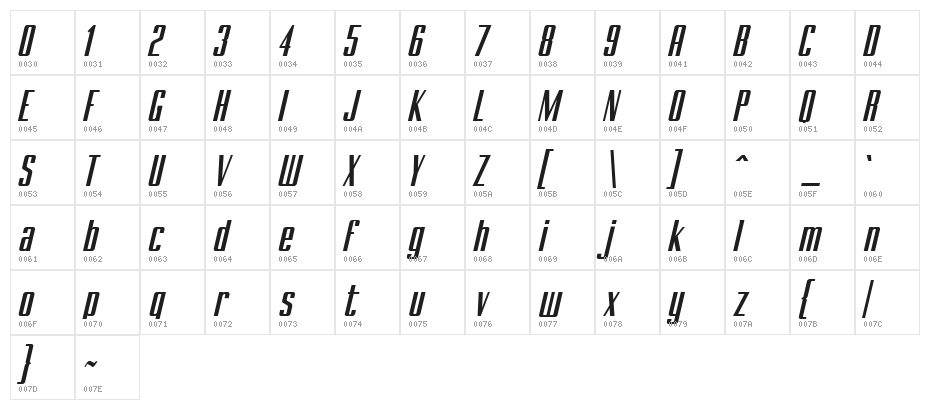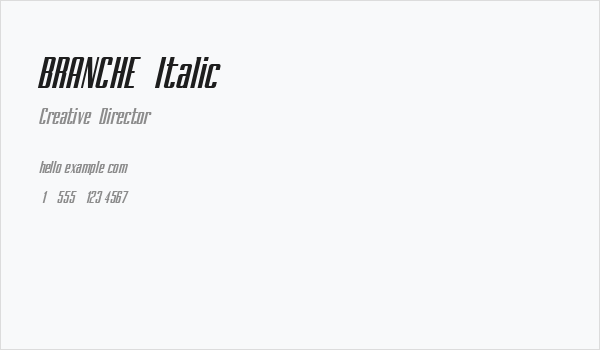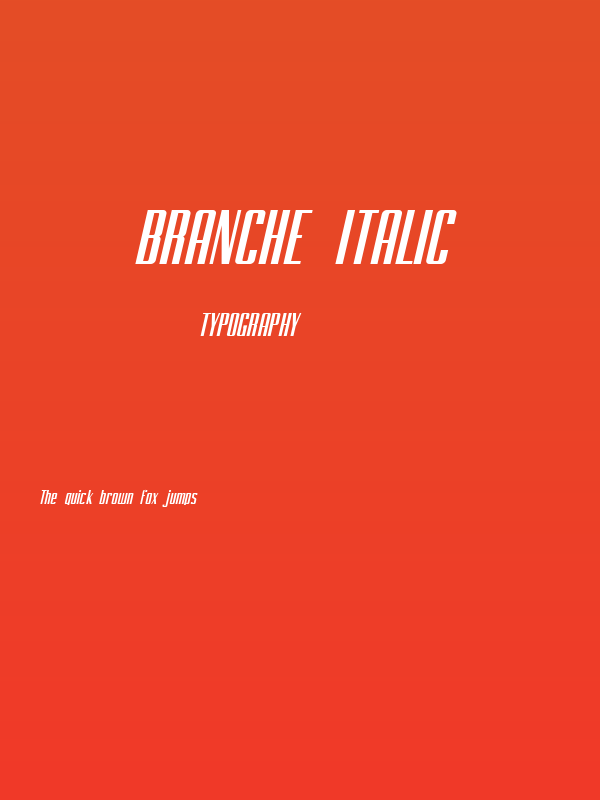
BRANCHE Italic Font
BRANCHE Italic Description
This font features a sleek, italicized design with elongated, narrow characters that convey a sense of speed and modernity. The letters are tightly spaced, enhancing the dynamic feel of the typeface. The strokes are consistent in width, providing a uniform appearance across all characters. The font includes both uppercase and lowercase letters, numbers, and a selection of special characters. Its sharp angles and clean lines make it suitable for contemporary design projects that require a bold, assertive look.
| Proposed Projects | Ideal for branding, sports team logos, automotive advertisements, and modern editorial design. |